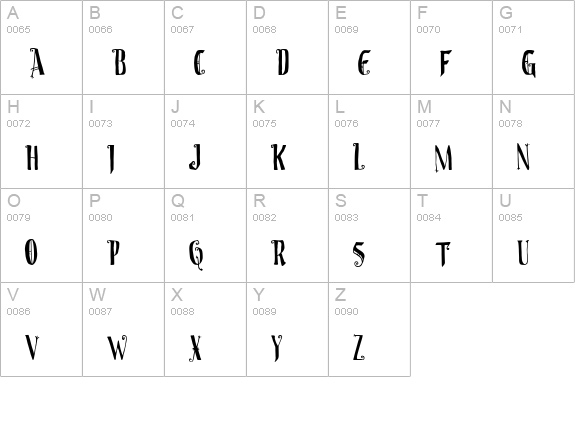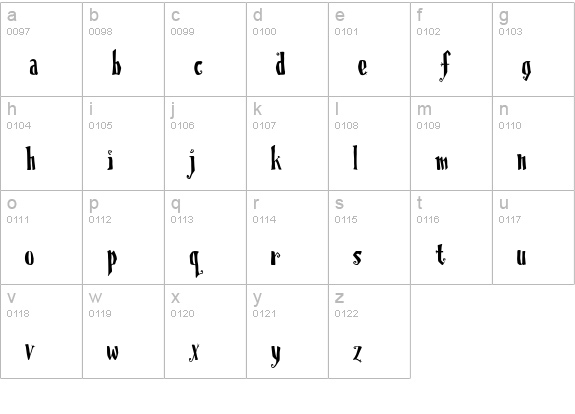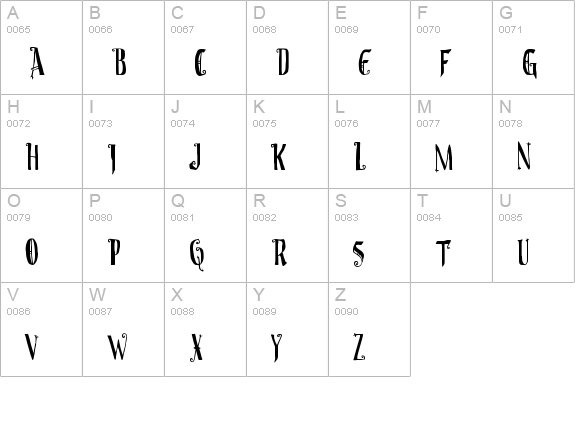
Christmas On Crack Font Details
Introducing Christmas On Crack font, the perfect typeface to add a touch of festive cheer to your designs this holiday season. This unique and playful font is sure to make your Christmas projects stand out from the crowd. With its bold and quirky letterforms, Christmas On Crack captures the spirit of the season in a fun and exciting way. But what makes Christmas On Crack font even more special is that it is available for free! That's right, you can freely download this delightful font at FontsMarket.com. Whether you're designing Christmas cards, party invitations, or holiday-themed posters, this font will bring a joyful and energetic vibe to your creations. The Christmas On Crack font features a wide range of uppercase and lowercase letters, numbers, and punctuation marks, allowing you to create eye-catching and personalized designs. Its bold and distinctive style is perfect for headlines, titles, and display purposes, ensuring that your message gets noticed. Whether you're a professional designer or a hobbyist, Christmas On Crack font is a must-have in your font collection. It's not only visually appealing but also incredibly versatile, making it suitable for a variety of design projects. From cheerful Christmas greetings to whimsical holiday illustrations, this font will add a touch of festive magic to any creative endeavor. So don't miss out on this amazing opportunity to get Christmas On Crack font for free. Head over to FontsMarket.com and download this merry and jolly typeface today. Spread the holiday spirit and make your designs shine with the playful charm of Christmas On Crack font.